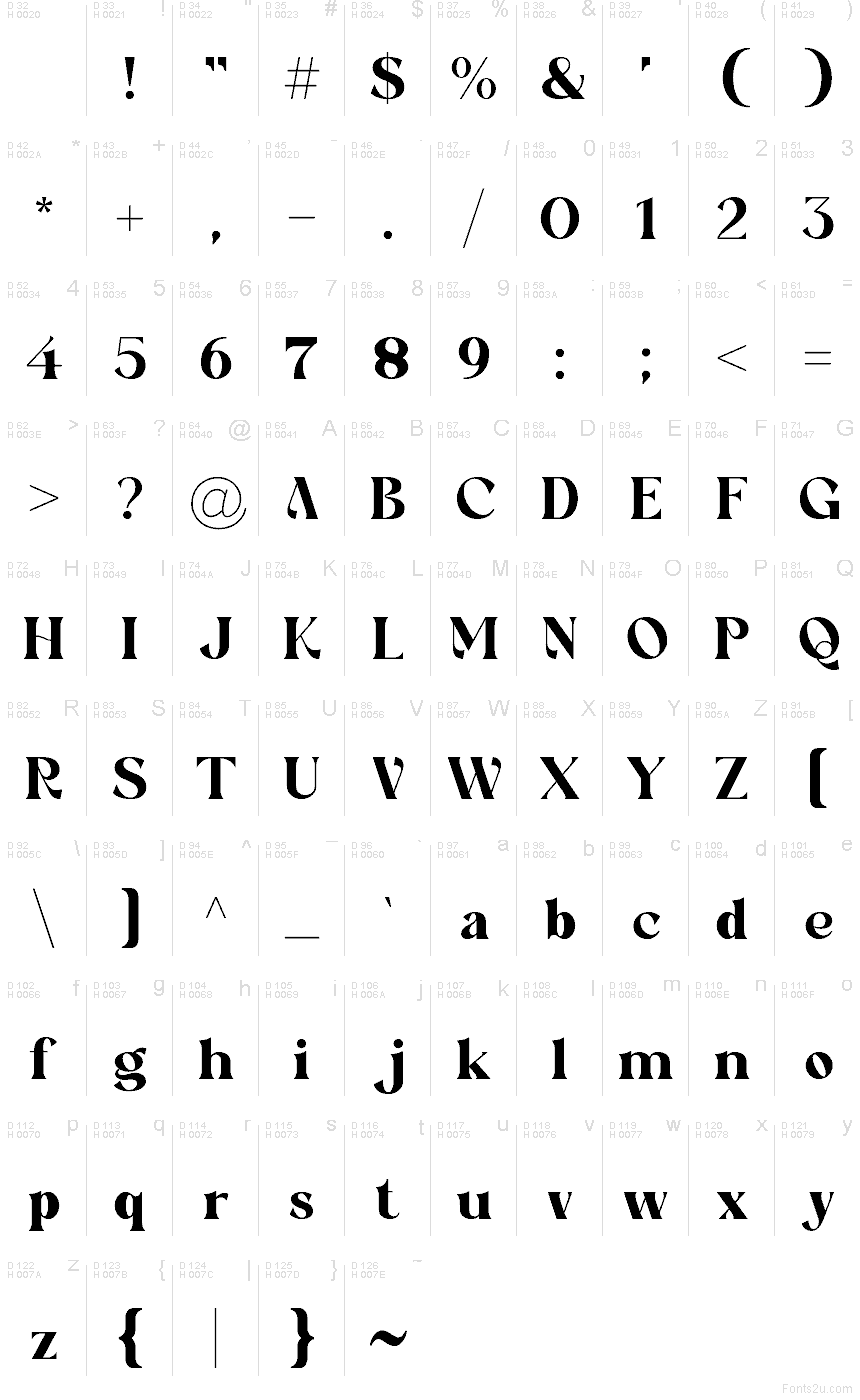
Lemar
Lemar font by ErmediaStudio is a free serif typeface with bold, inky curves and punchy, sculpted details that feel almost carved out of paper. Thick, weighty strokes end in soft, bulb-like flares, giving each word a lush, saturated presence while still reading clean and confident. It’s the kind of serif that feels luxurious and modern at the same time, with a strong rhythm that instantly pulls the eye to your headline.
Using Lemar, this free font, you can push brand names, magazine titles, posters, packaging, book covers, and event graphics into richer, more dramatic territory. The generous shapes hold up beautifully at larger sizes, where the subtle curves and chunky forms really shine. Pair Lemar with a simple geometric sans for body text to keep your layouts balanced and easy to read.